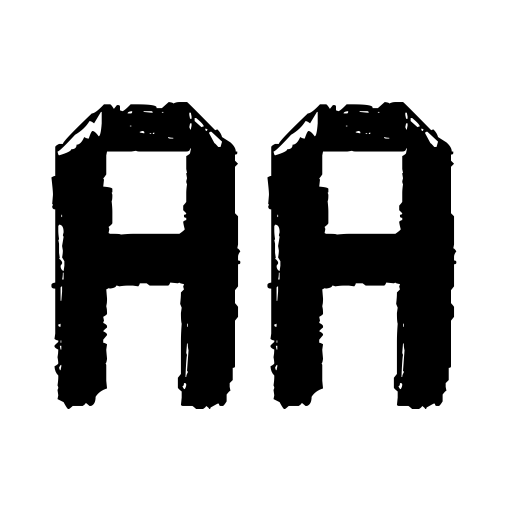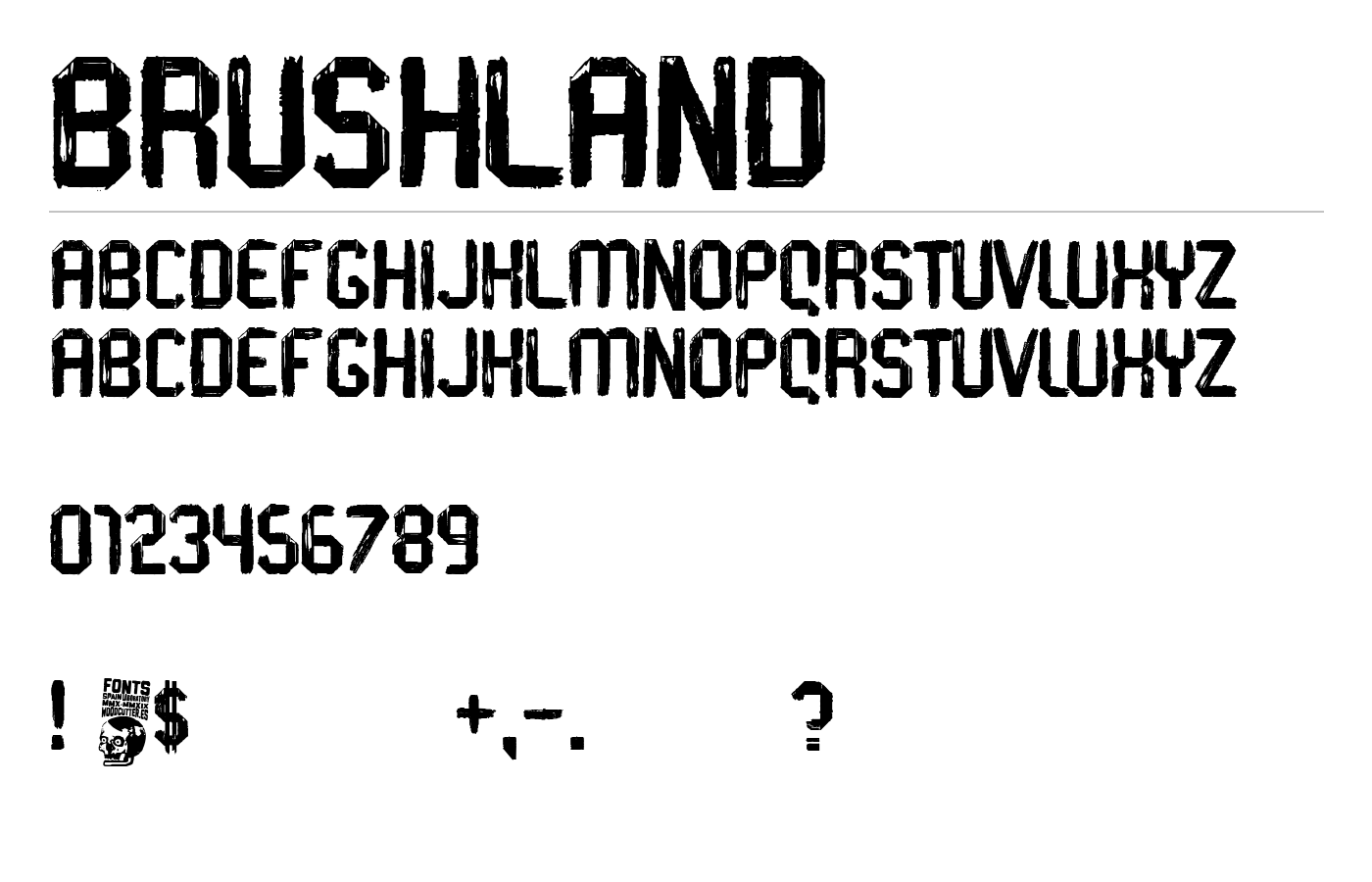
Brushland is a bold, condensed sans serif font with a rough, hand-brushed texture that gives it a raw, urban edge. Its tall, narrow letterforms combined with uneven stroke edges create a distinctive, gritty look ideal for expressive, street-style branding and dynamic headlines. This font works well in posters, logos, and designs that seek a rebellious, energetic personality with a handcrafted feel.
Brushland Font
About Brushland Font